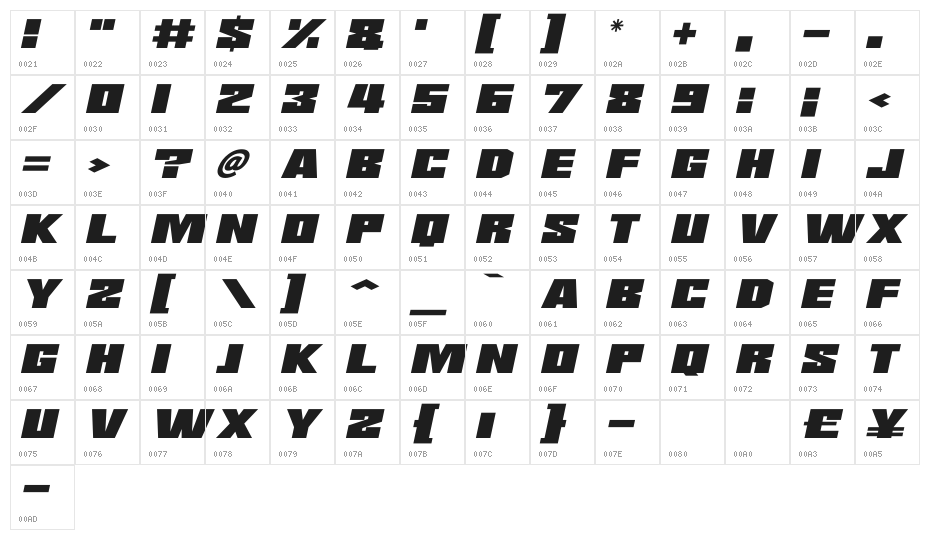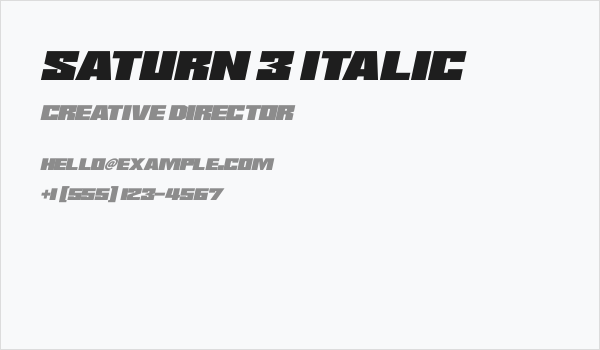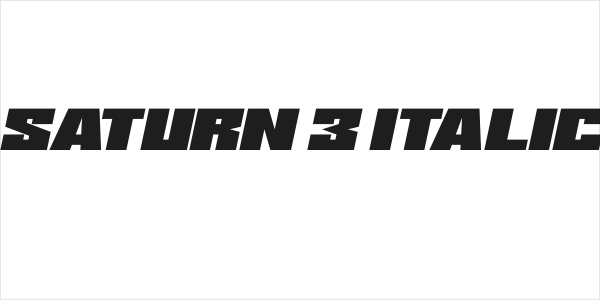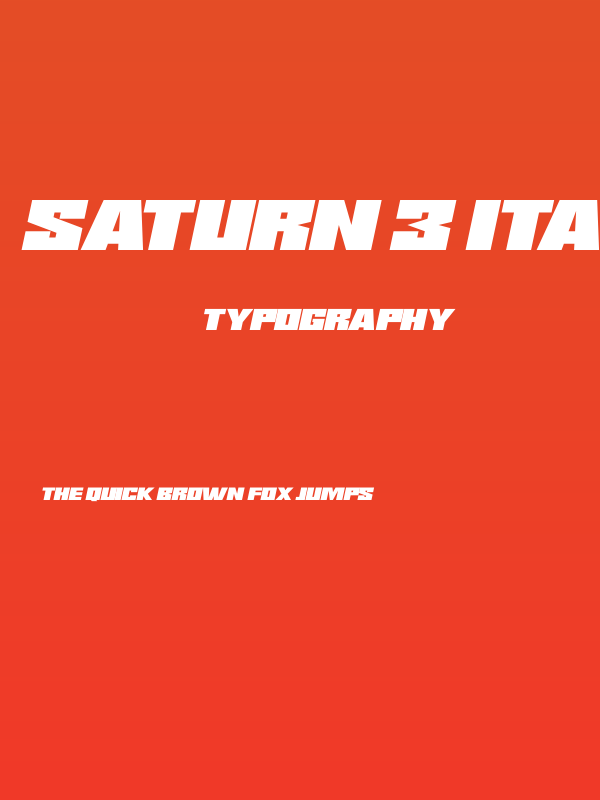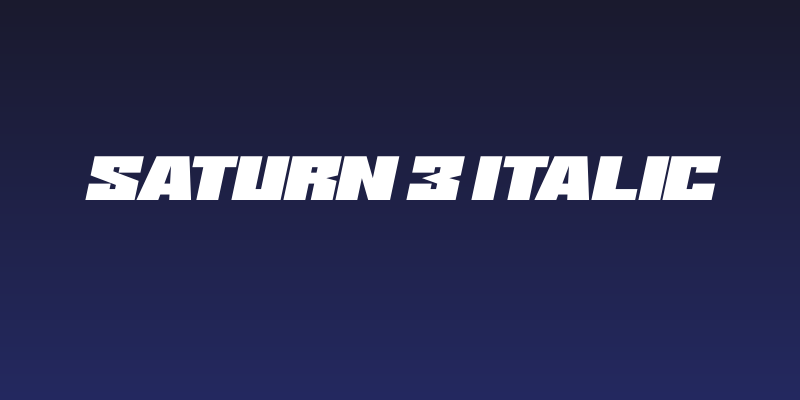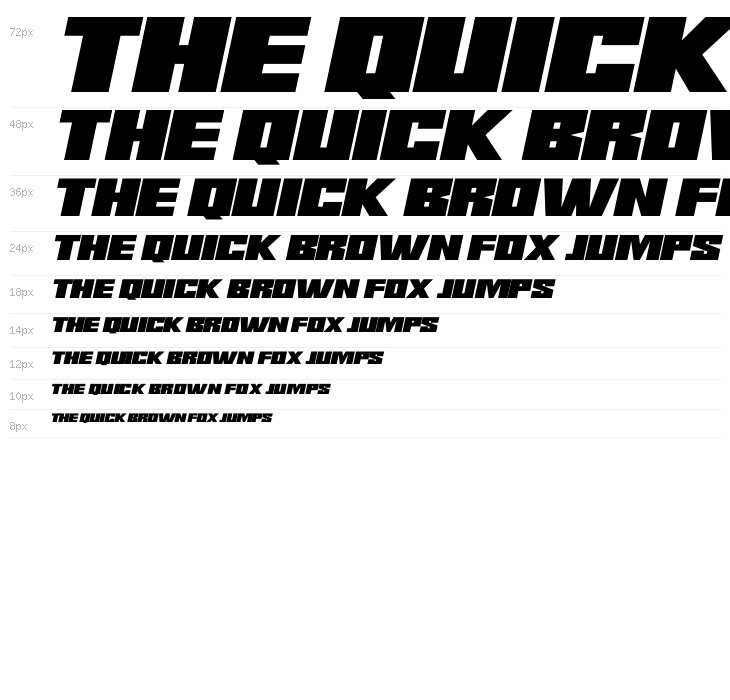
Saturn 3 Italic Font
Saturn 3 Italic Description
This font features a bold, italicized style with a futuristic and dynamic appearance. The characters are sharply angled, giving a sense of motion and energy. The uppercase and lowercase letters maintain a consistent slant, enhancing the italic effect. The numbers and special characters follow the same design principles, ensuring uniformity across all glyphs. The font's thick strokes and geometric shapes make it highly legible, even at smaller sizes. Its distinct style is suitable for projects that require a modern and impactful look.
| Proposed Projects | Ideal for sci-fi themed designs, video game graphics, sports branding, and dynamic posters. |